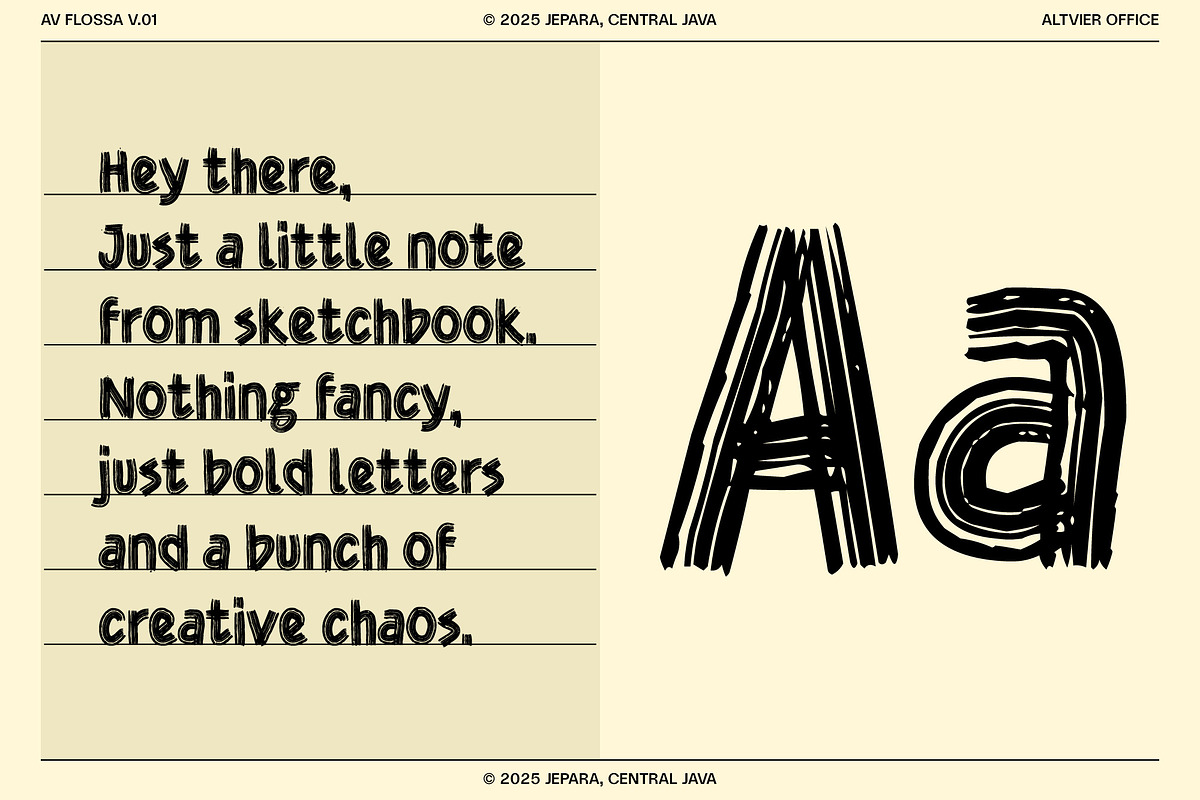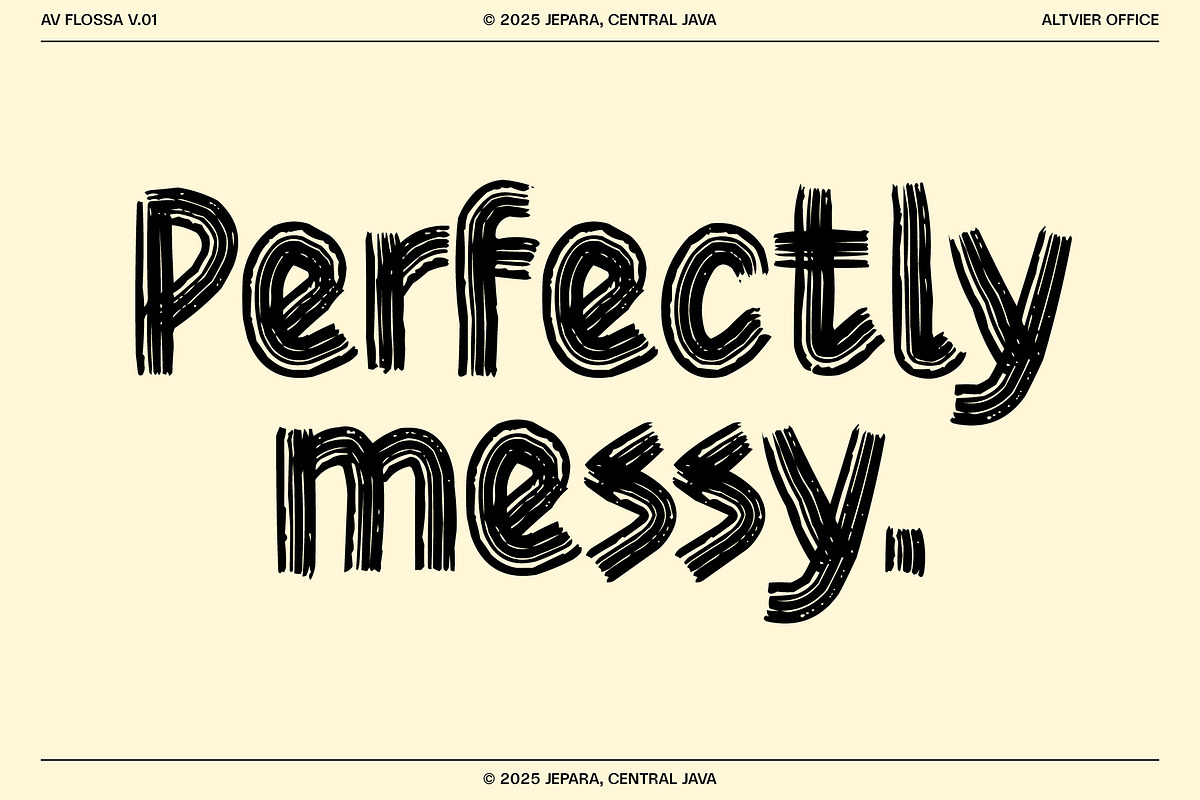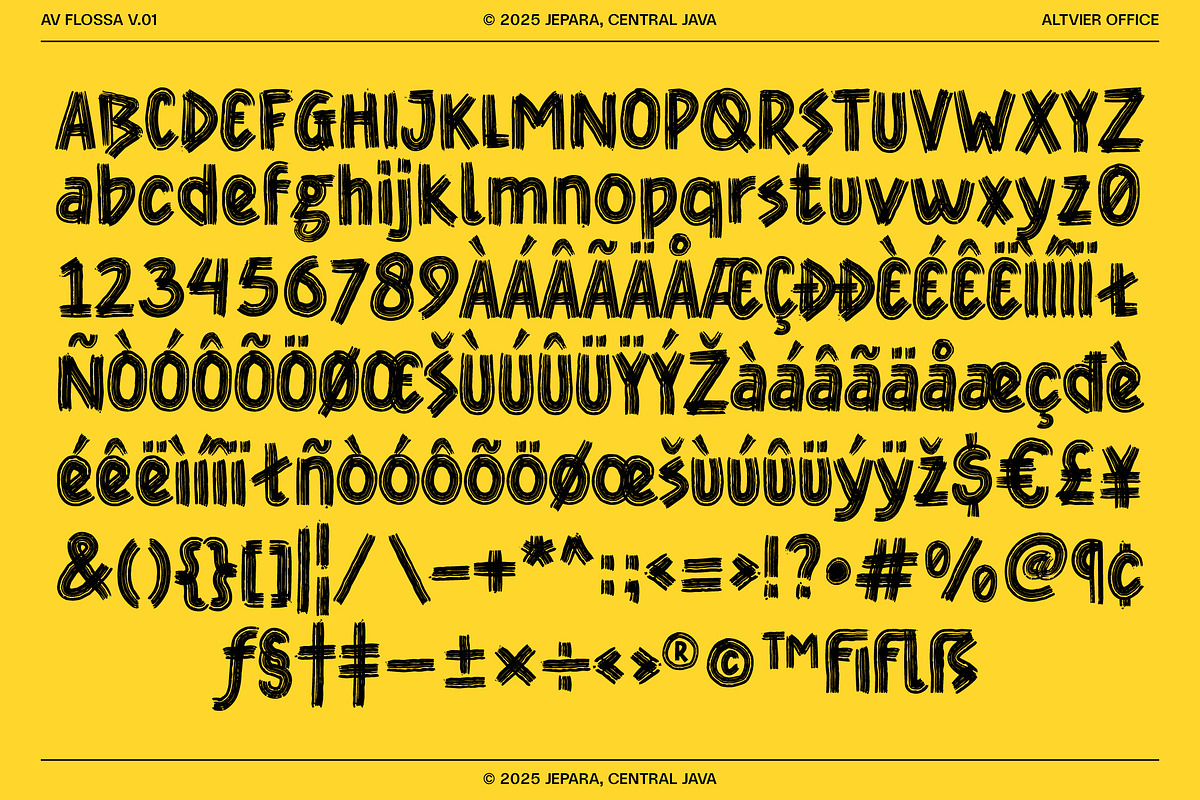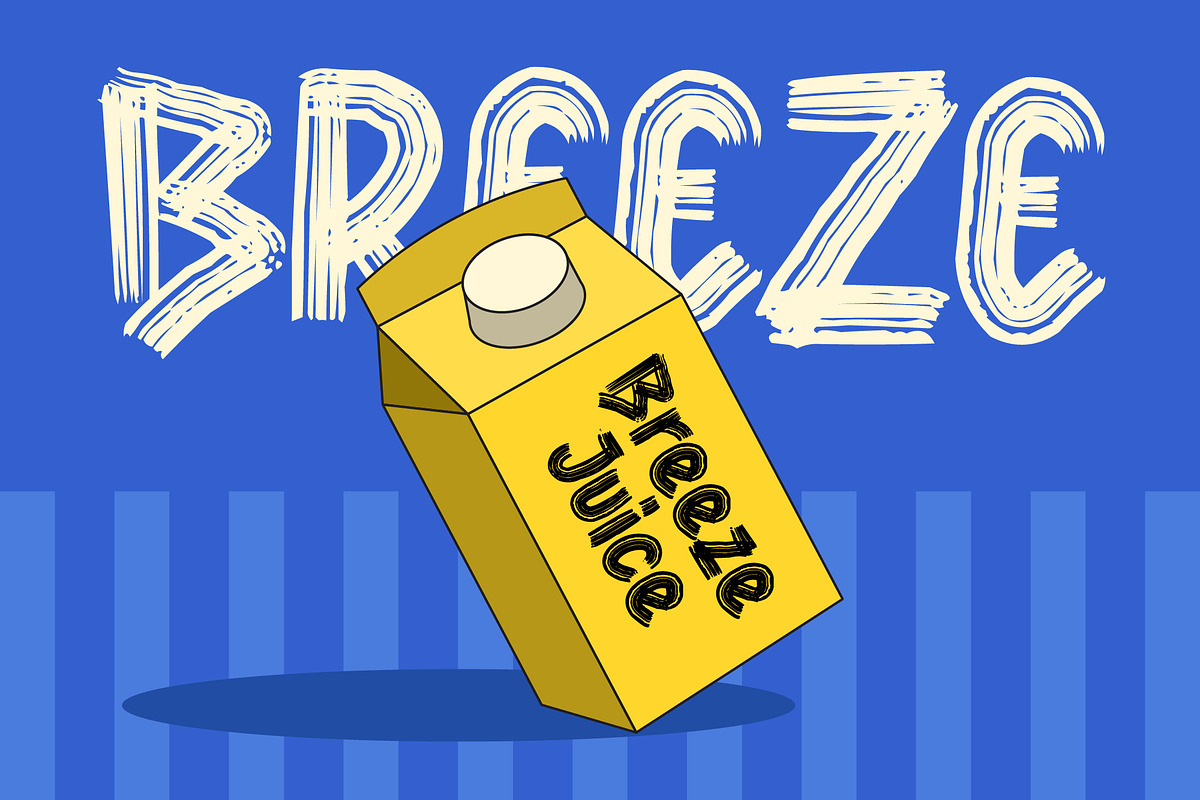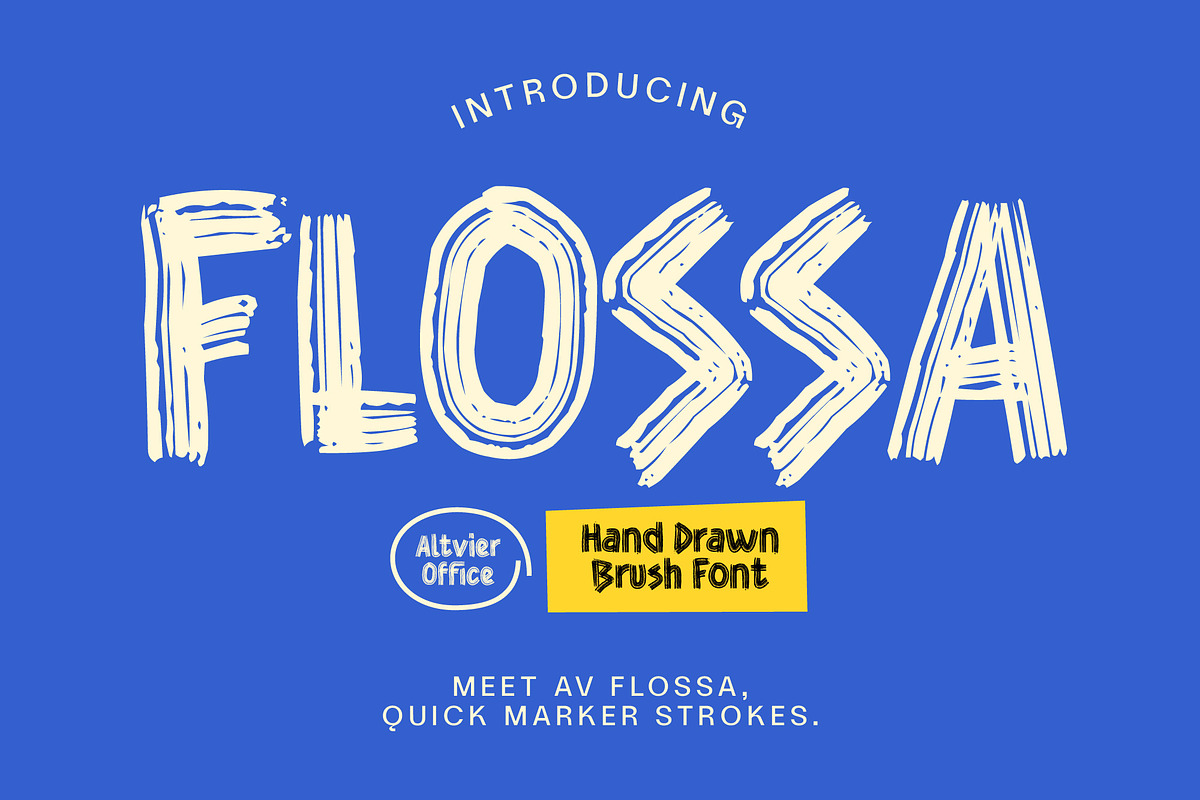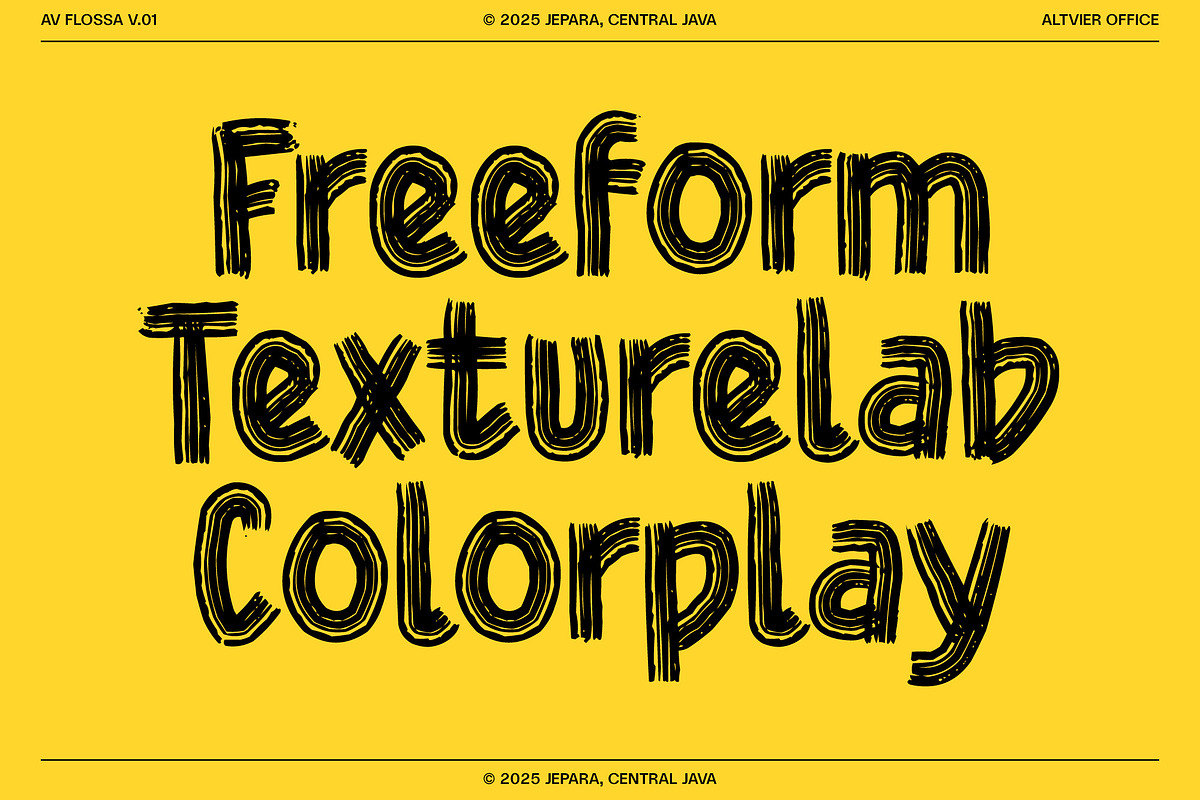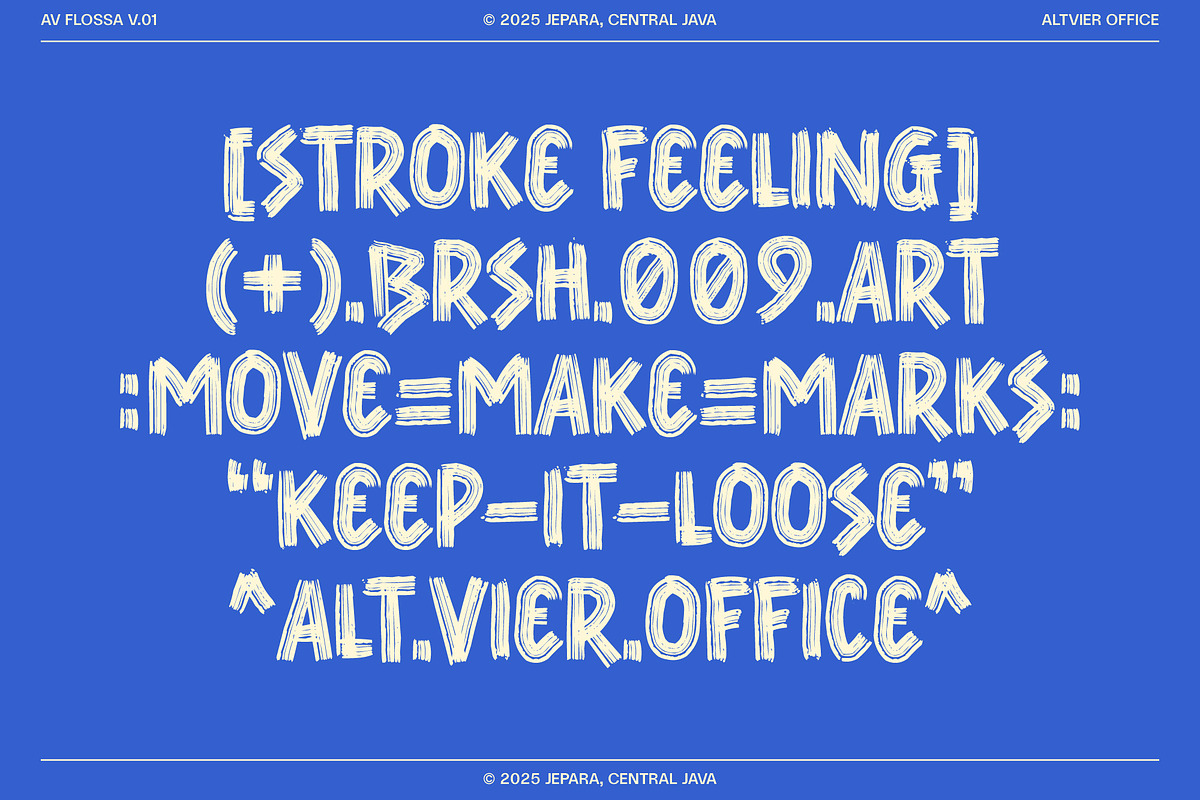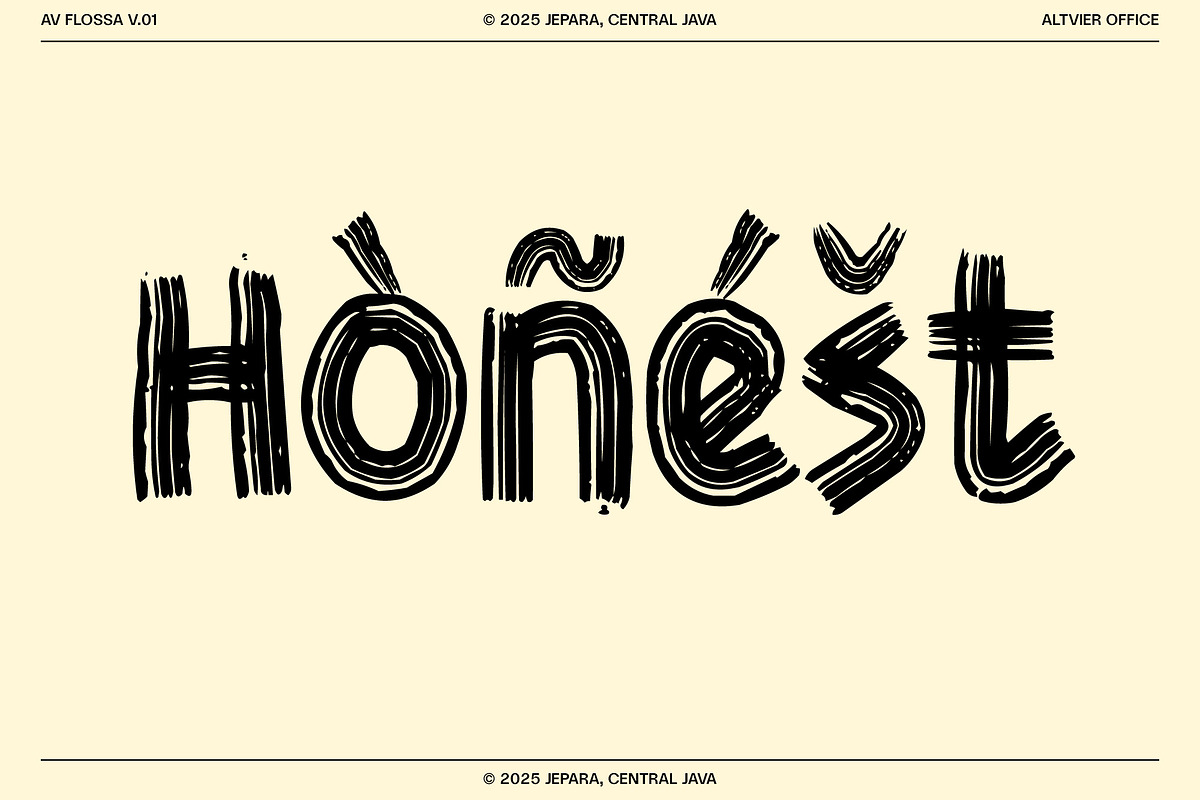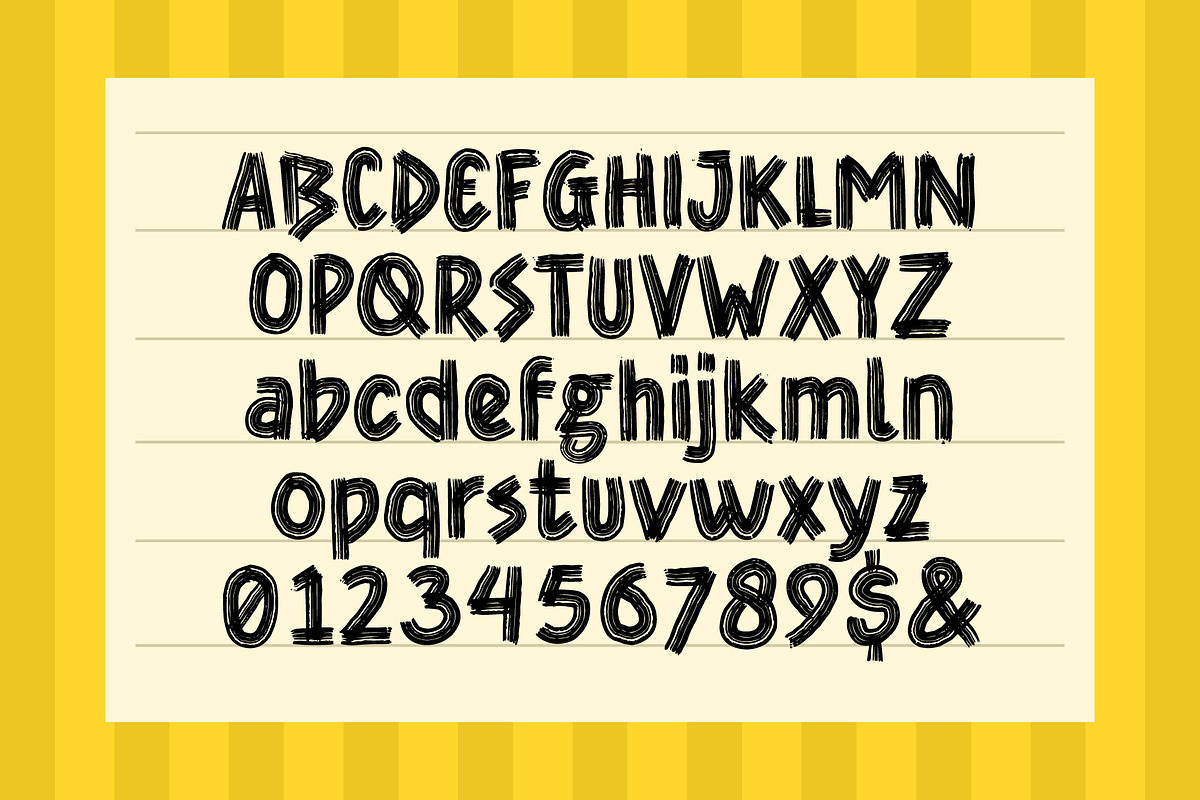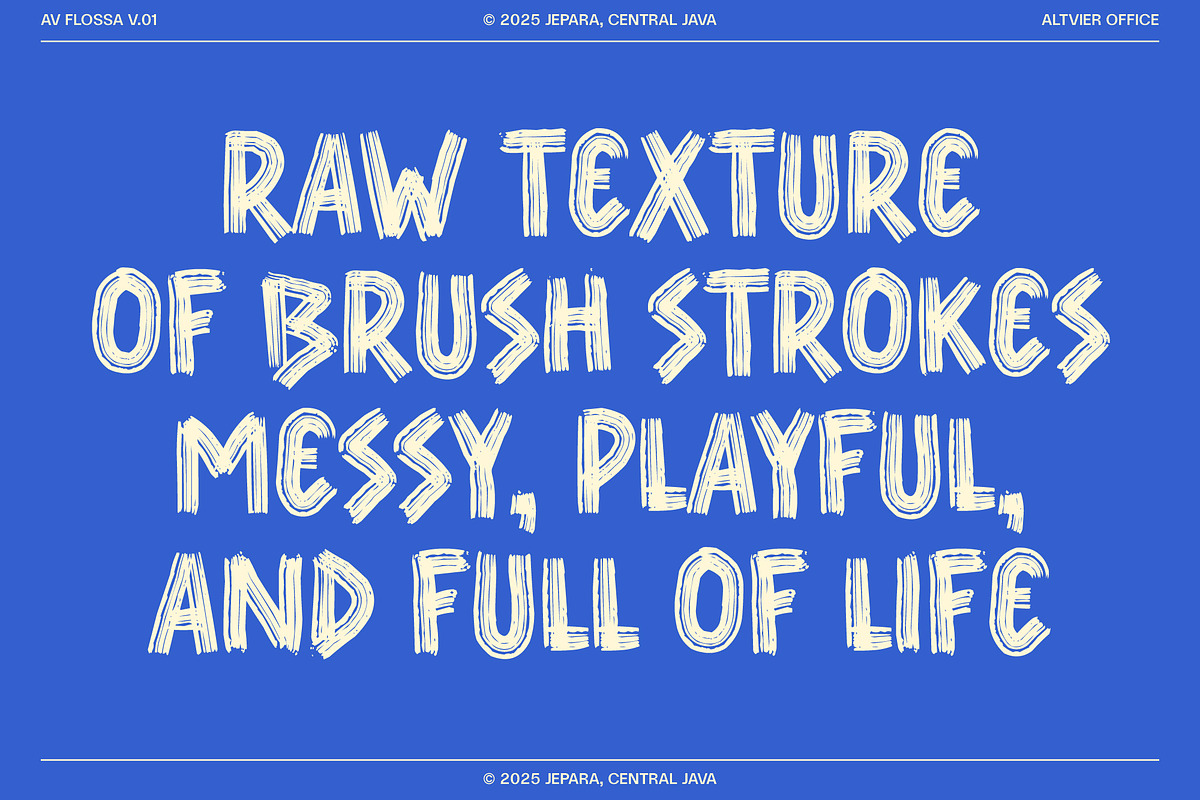
Flossa - Hand Drawn Brush Font
FLOSSA — Hand Drawn Brush Font
Flossa brings energy, motion, and a handmade touch to your design. Inspired by quick marker strokes and sketchbook spontaneity, it’s perfect for posters, packaging, headlines, or any project that needs a loud, human touch.
Use it to shout your message with character — bold, imperfect, and real.
- Uppercase & Lowercase + numbers + punctuation
- Natural brush texture
- Perfect for creative posters, event flyers, or DIY branding
- Supports multilanguage Latin